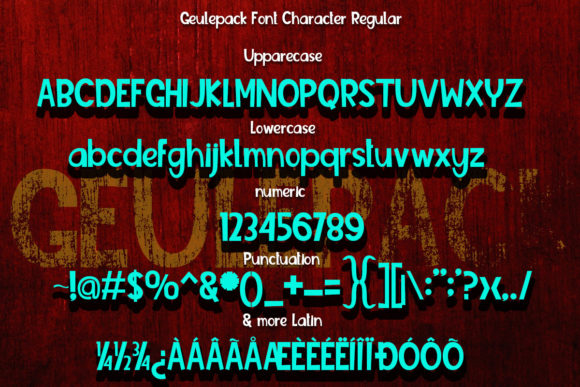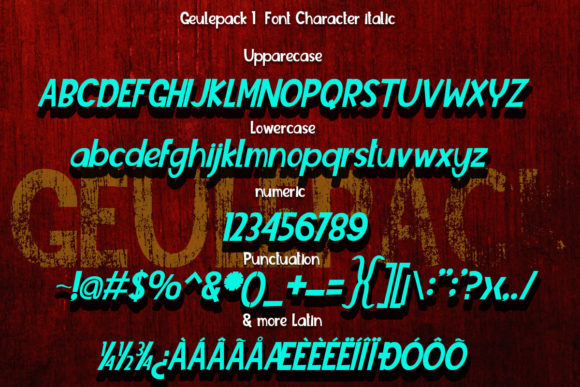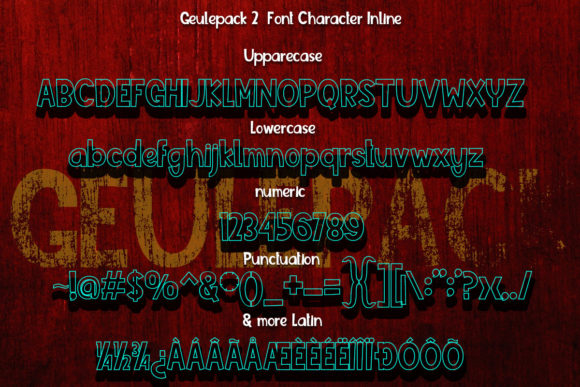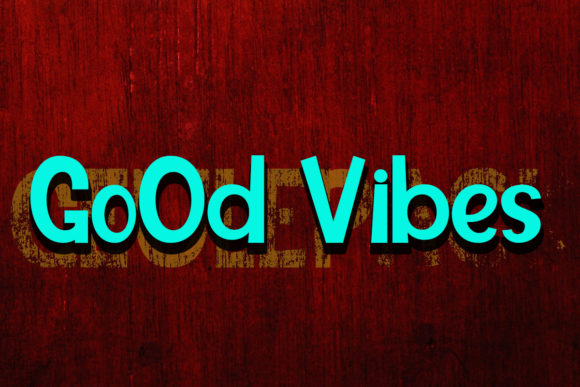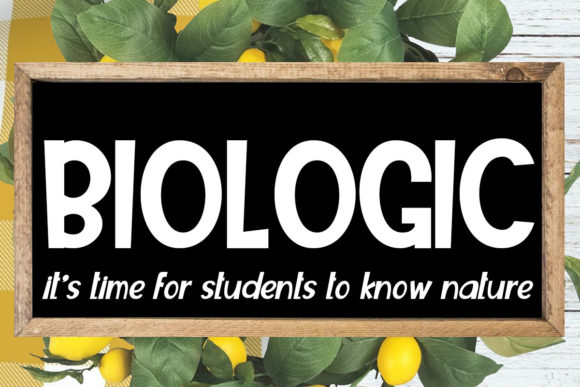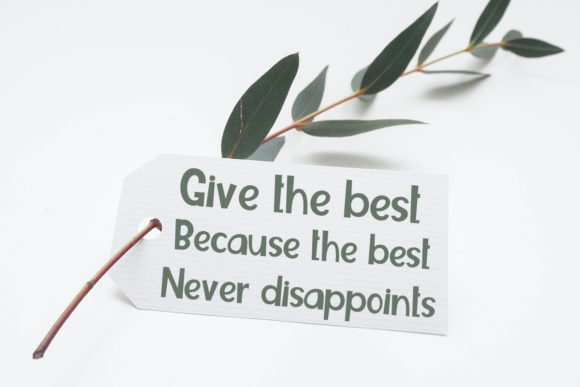
Discover the Unique Style of Geulepack Font
Are you a designer or crafter looking for a font that can add a touch of class and style to your creative projects? Look no further than the Geulepack font. This sans serif font boasts a unique and distinctive style that is sure to make your work stand out. With its beautifully rounded characters and sleek lines, Geulepack font is perfect for a wide range of projects, from comics and posters to food packaging and branding.
What is Geulepack Font?
Geulepack font is a sans serif font, which means that it doesn’t have the small lines or flourishes that are commonly found at the ends of letters in serif fonts. Instead, Geulepack font features clean, simple lines and beautifully rounded characters that give it a modern and sophisticated look. The font is highly legible, making it perfect for use in a wide range of applications, from large headlines to small body text.
Key Features of Geulepack Font
So what sets Geulepack font apart from other fonts? Here are just a few of its key features:
- Unique and distinctive style: Geulepack font has a one-of-a-kind look that is sure to make your work stand out.
- Classy and beautifully rounded characters: The font’s rounded characters give it a friendly and approachable feel.
- Highly legible: Geulepack font is easy to read, even at small sizes.
- Versatile: The font can be used in a wide range of applications, from comics and posters to food packaging and branding.
Uses for Geulepack Font
So what can you use Geulepack font for? The possibilities are endless! Here are just a few ideas to get you started:
- Comics and graphic novels: Geulepack font is perfect for adding a touch of style and personality to your comic book or graphic novel.
- Posters and flyers: The font’s bold, eye-catching style makes it perfect for use in posters and flyers.
- Food packaging: Geulepack font is a great choice for food packaging, as it’s clean, modern, and highly legible.
- Branding projects: The font’s unique style makes it perfect for use in branding projects, such as logos and business cards.
Tips for Using Geulepack Font
Here are a few tips for getting the most out of Geulepack font:
- Experiment with different sizes: Geulepack font looks great at a wide range of sizes, from large headlines to small body text.
- Play with color: The font’s clean lines and simple style make it a great choice for use with a wide range of colors and textures.
- Use it with other fonts: Geulepack font pairs well with a wide range of other fonts, so don’t be afraid to experiment with different combinations.
In conclusion, Geulepack font is a unique and versatile font that is perfect for designers and crafters looking to add a touch of style and personality to their work. With its beautifully rounded characters, sleek lines, and highly legible design, Geulepack font is sure to become a go-to choice for a wide range of creative projects. So why wait? Download Geulepack font today and start adding a touch of class and style to your work!